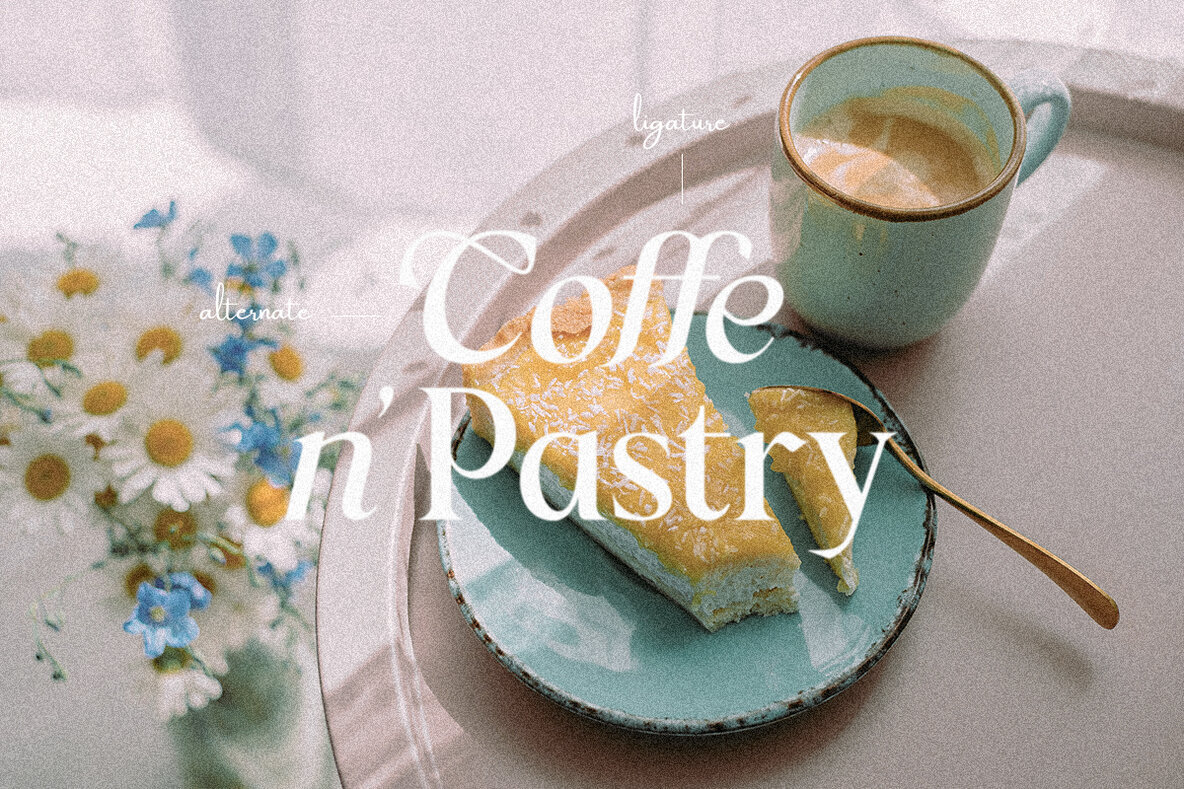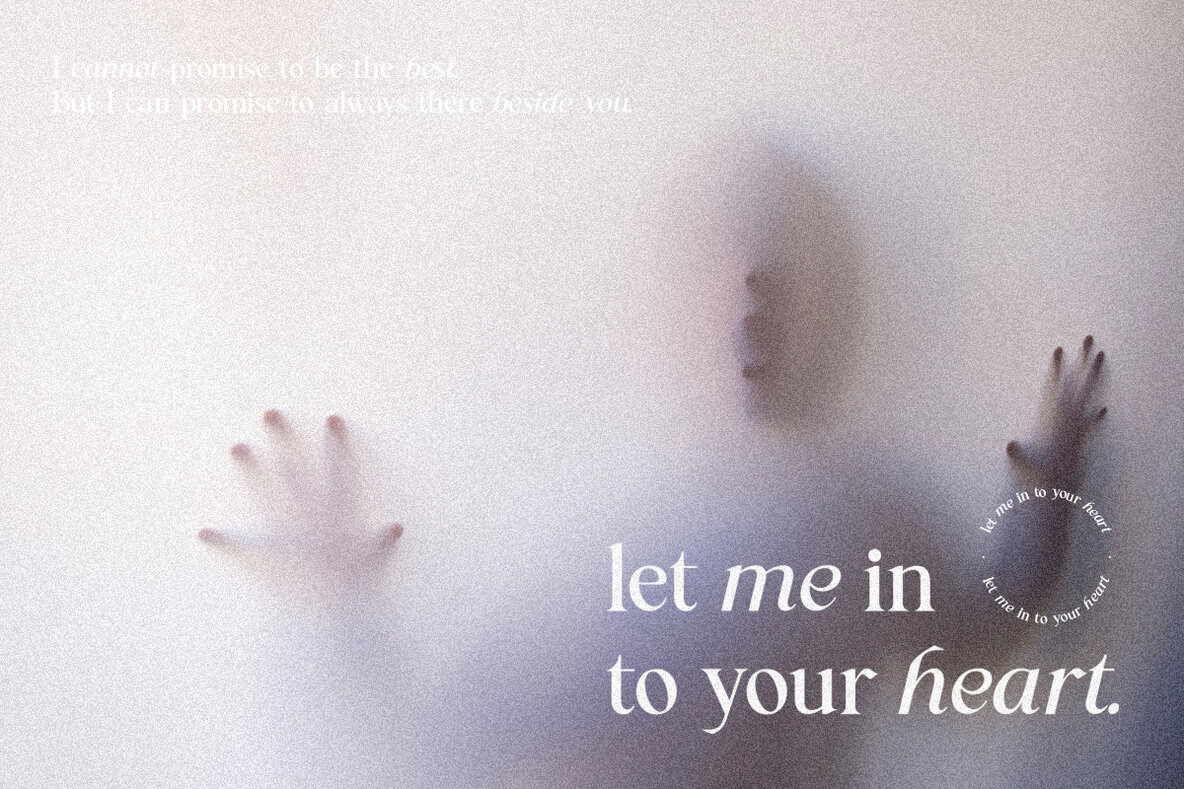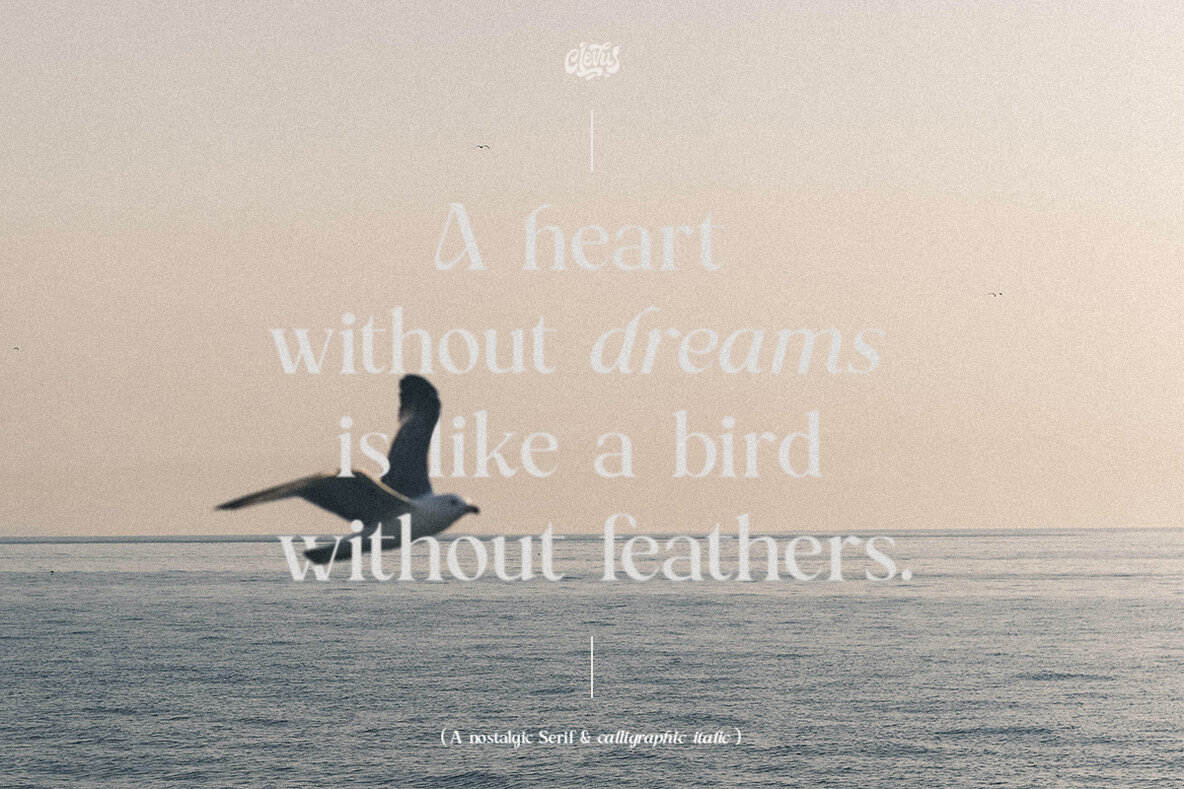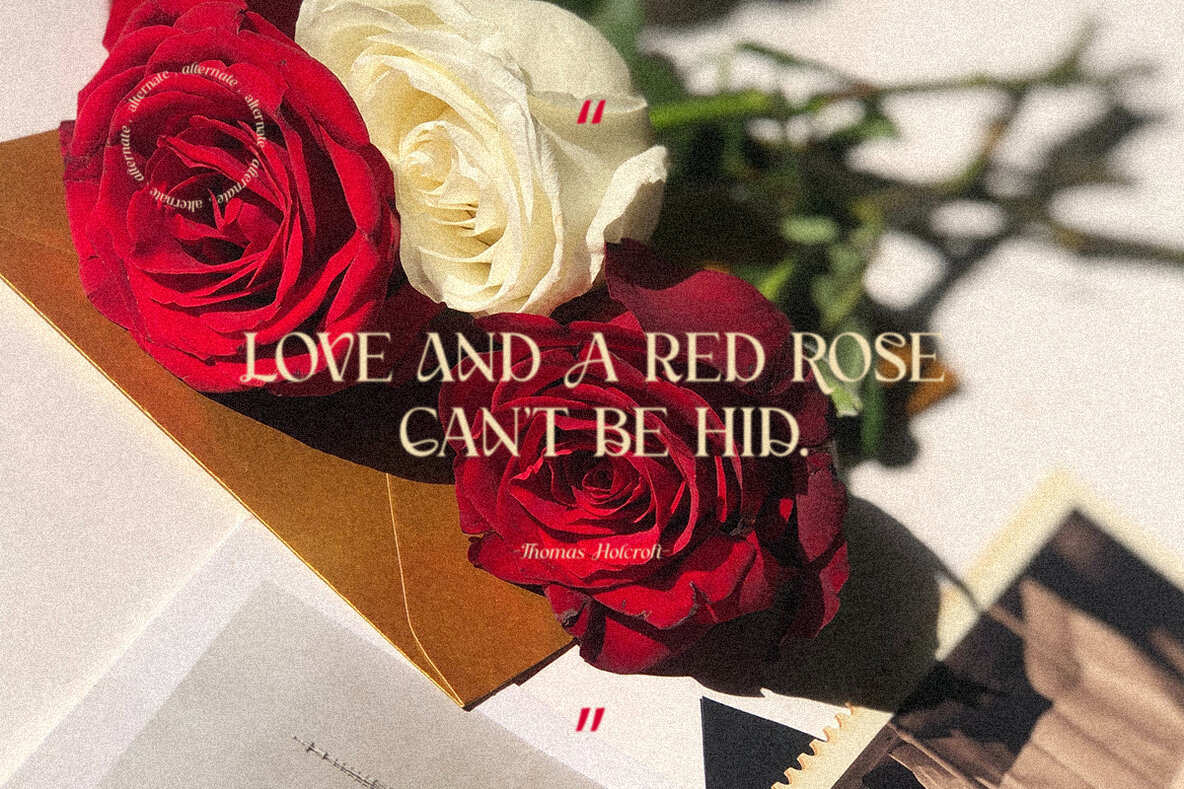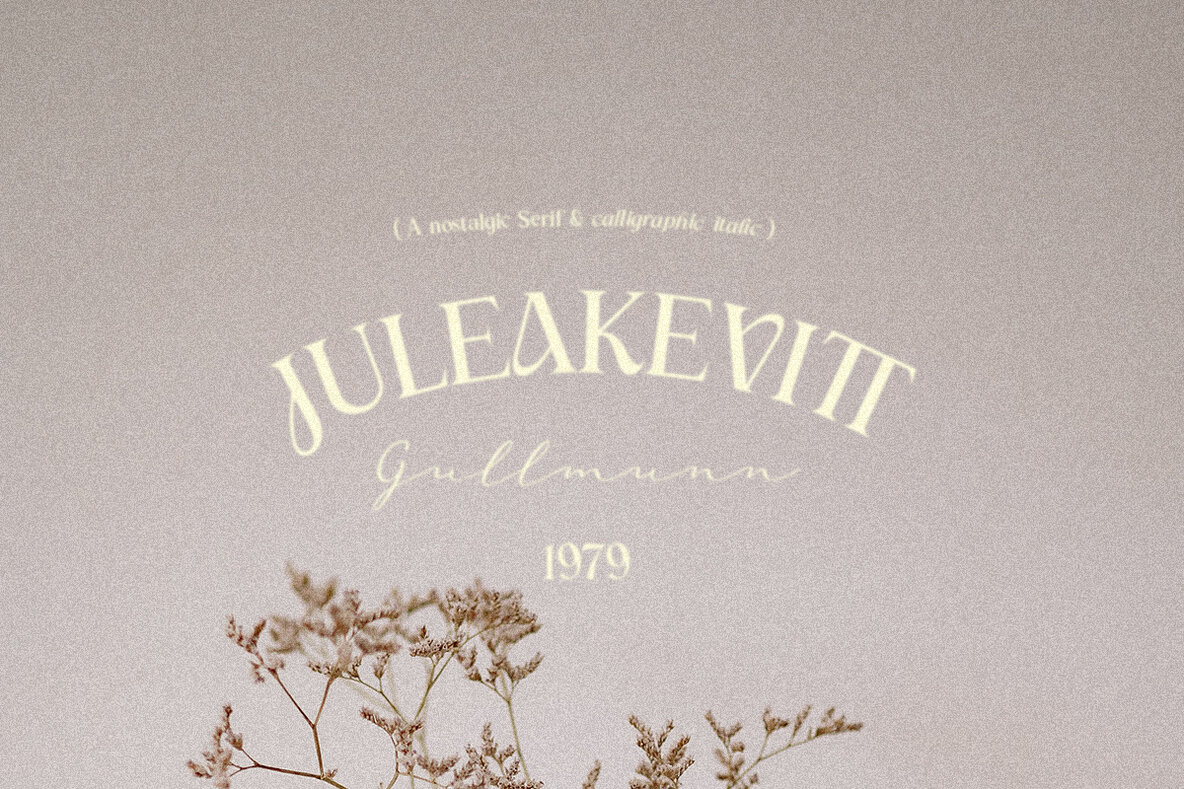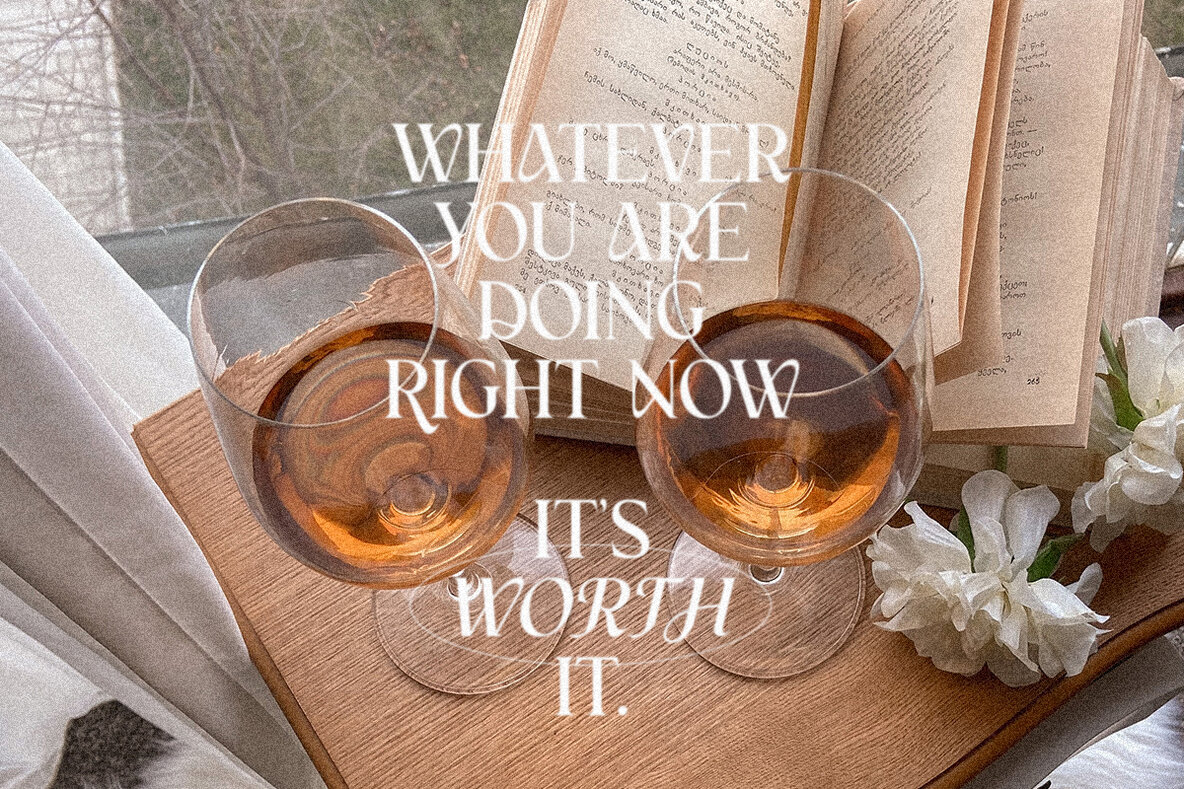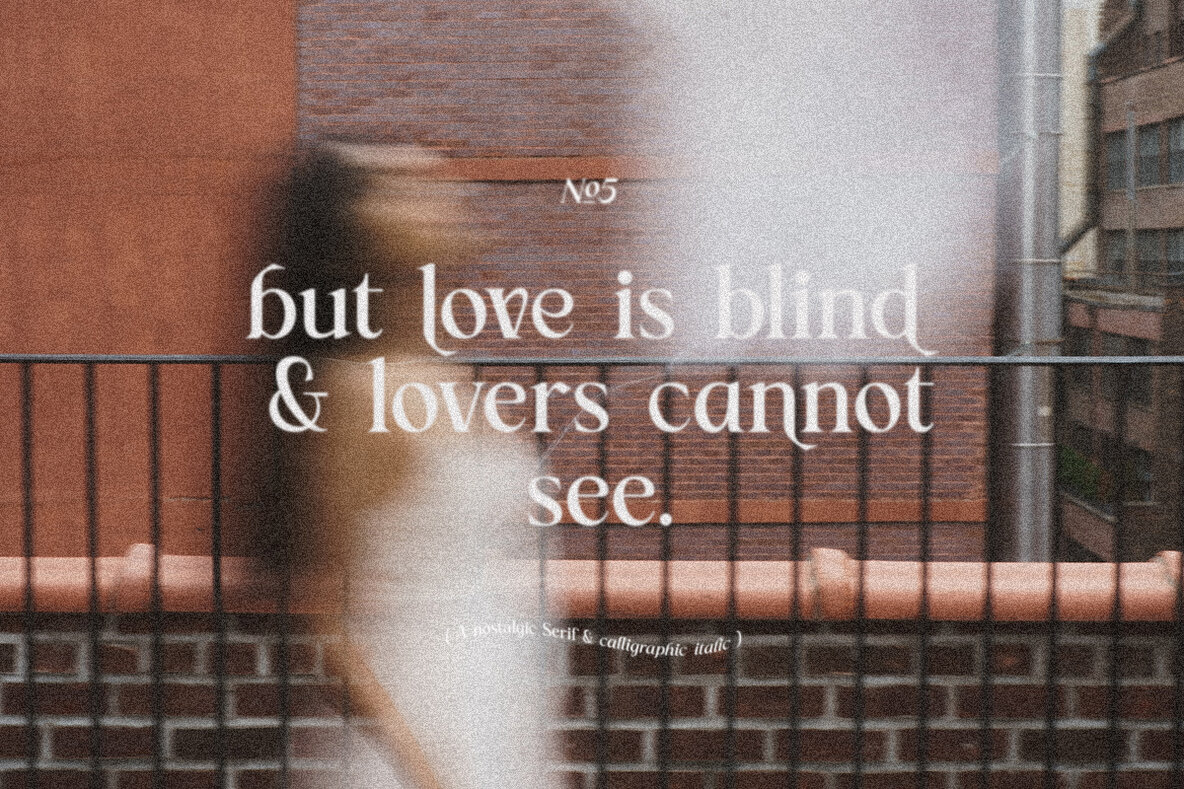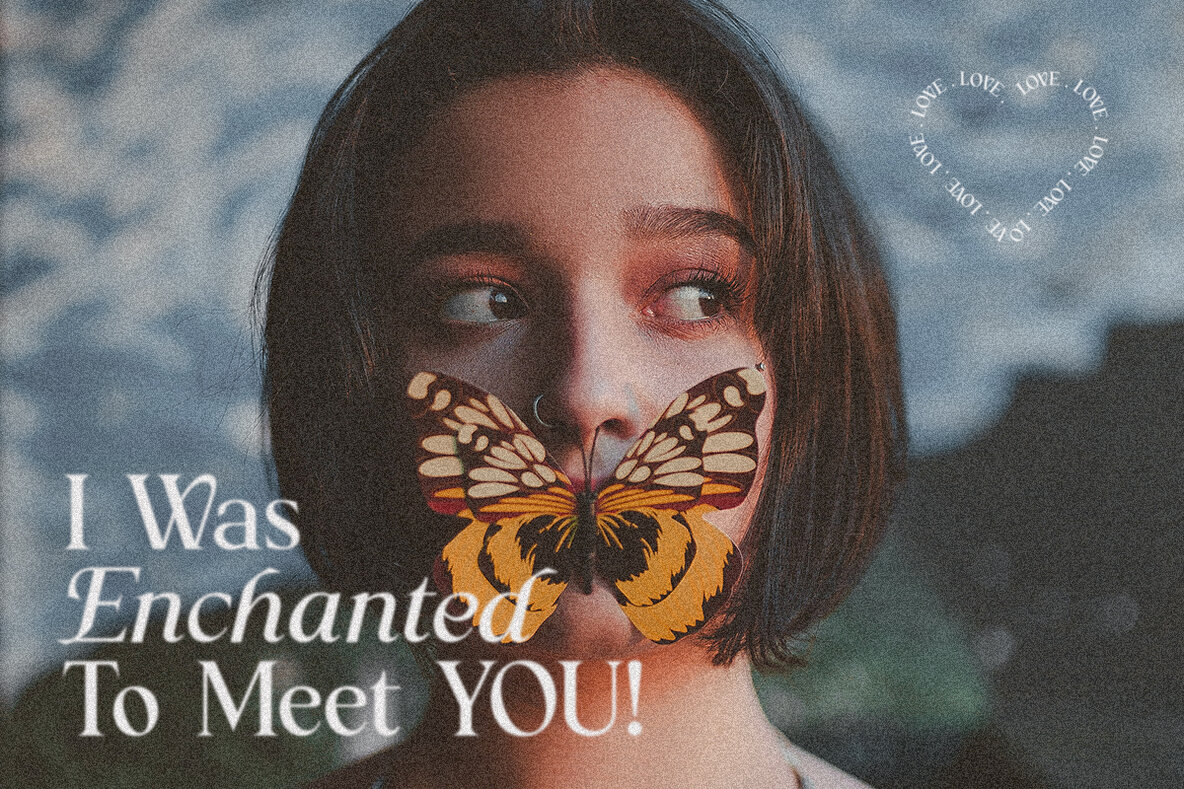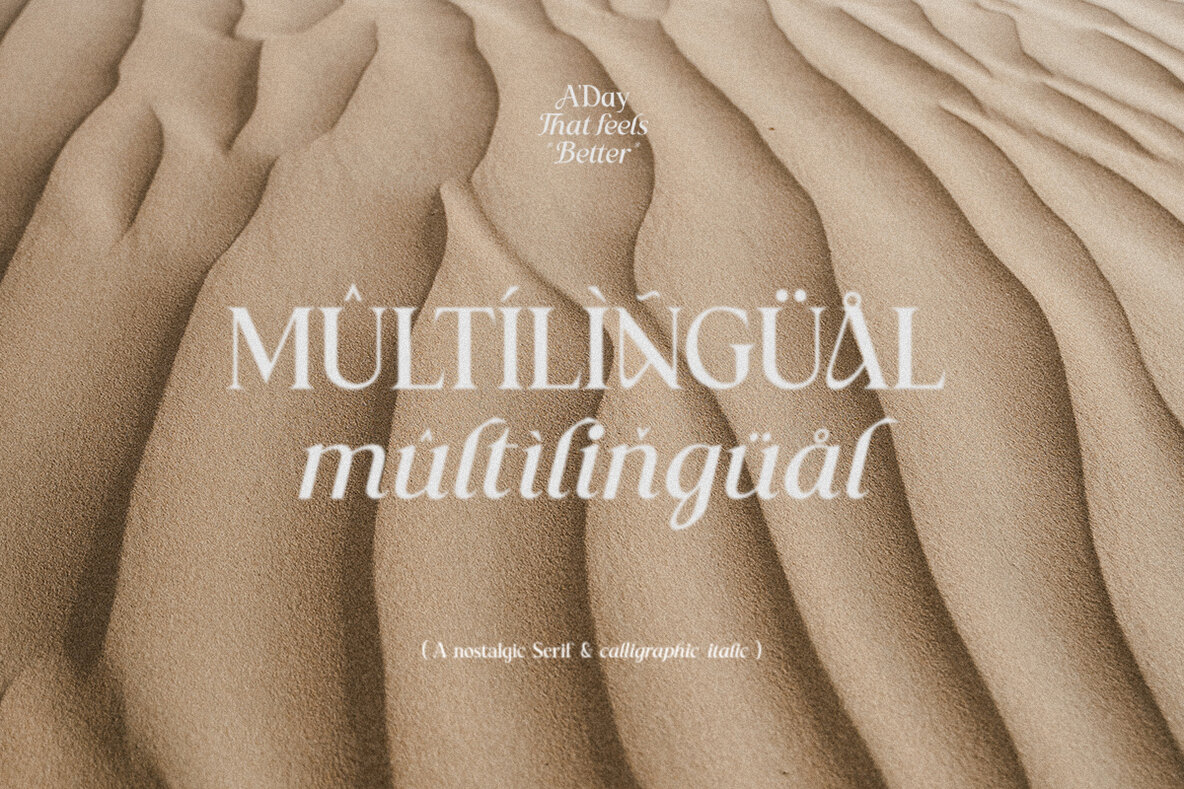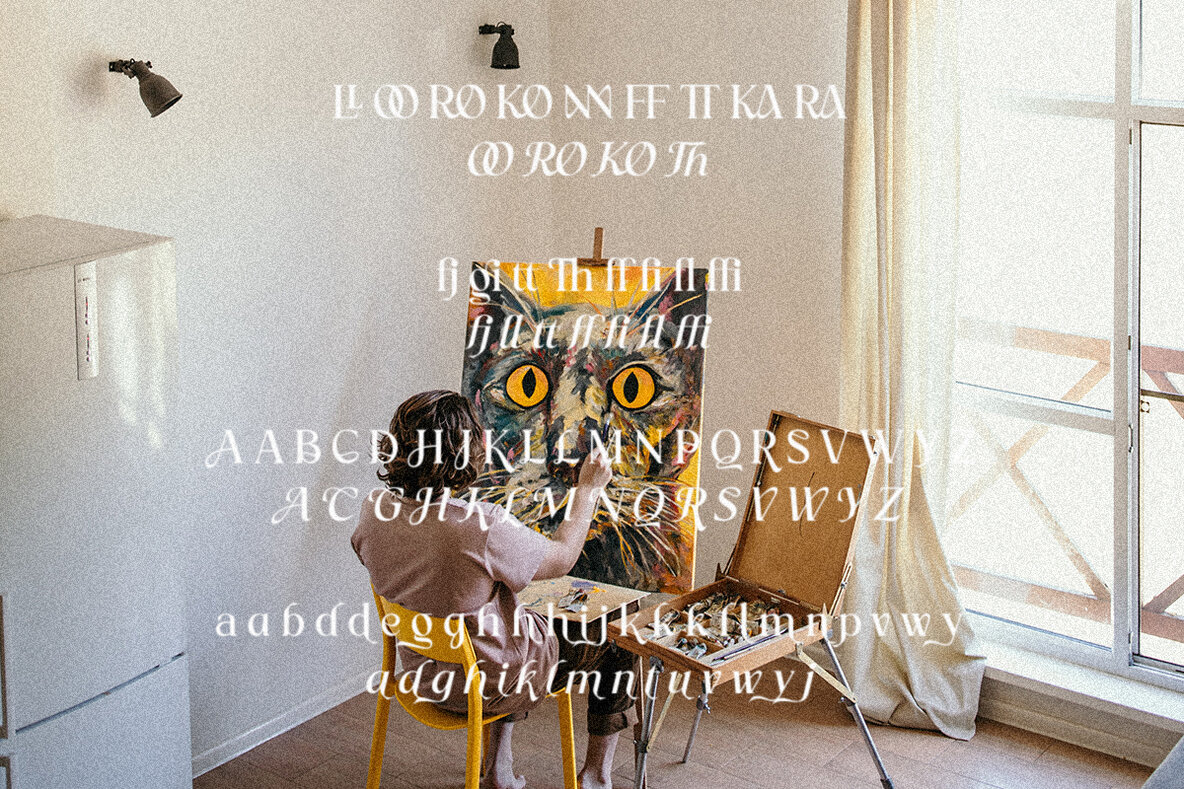
A Day That Feels Better Font
Get ready to feel better than ever with A Day That Feels Better font, created by ClevUs. Perfect for creating timeless designs and logos with a nostalgic serif font and modern calligraphic italic typeface that has its own unique style, you can create something special no matter what your project is – whether it be for luxury logo design, book or movie titles, fashion branding, magazines, social media posts, graphic design or web theatre lettering. With endless designing possibilities available – the only thing left to do is get designing!